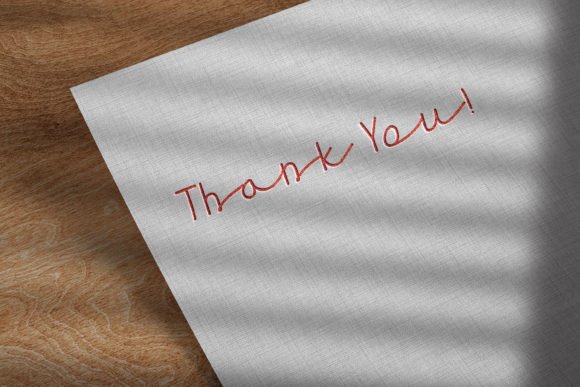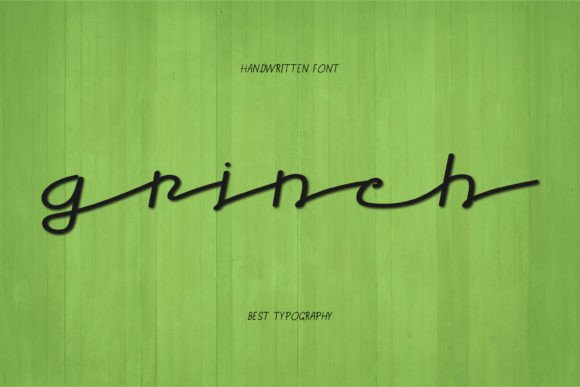
Grinch Font: The Ultimate Guide to Adding a Touch of Whimsy to Your Designs
Are you tired of using the same old fonts in your designs? Look no further than the Grinch Font! This fun and quirky script font is perfect for crafty ideas and is sure to add a touch of personality to your work. In this article, we’ll take a closer look at the Grinch Font, its features, and how you can use it to take your designs to the next level.
What is Grinch Font?
The Grinch Font is a script font inspired by the beloved character from Dr. Seuss’s classic tale, “How the Grinch Stole Christmas”. This font is designed to capture the whimsical and playful spirit of the Grinch, making it perfect for designs that require a touch of humor and personality.
Features of Grinch Font
The Grinch Font comes with a range of features that make it a versatile and fun font to work with. Some of its key features include:
- Unique lettering style: The Grinch Font features a unique lettering style that is reminiscent of the Grinch’s signature scribble.
- Quirky and playful: This font is designed to be quirky and playful, making it perfect for designs that require a touch of whimsy.
- Script font: The Grinch Font is a script font, making it perfect for use in titles, headings, and other design elements.
- Easy to read: Despite its quirky style, the Grinch Font is easy to read, making it perfect for use in a range of designs.
How to Use Grinch Font in Your Designs
The Grinch Font is a versatile font that can be used in a range of designs, from crafty projects to digital designs. Here are some ideas for using the Grinch Font in your designs:
- Crafting projects: The Grinch Font is perfect for use in crafting projects, such as card making, scrapbooking, and DIY gifts.
- Digital designs: This font can also be used in digital designs, such as social media graphics, blog posts, and digital invitations.
- Sign making: The Grinch Font is a great choice for sign making, whether you’re creating a sign for a business or a personal project.
- Party decorations: This font can also be used to create fun and playful party decorations, such as banners and garlands.
Tips for Using Grinch Font
Here are some tips for using the Grinch Font in your designs:
- Use it sparingly: While the Grinch Font is fun and playful, it can be overwhelming if used too much. Use it sparingly to add a touch of personality to your designs.
- Pair it with other fonts: The Grinch Font pairs well with other fonts, such as sans serif fonts and serif fonts. Experiment with different pairings to find the one that works best for your design.
- Experiment with colors: The Grinch Font looks great in a range of colors, from bright and bold to pastel and subtle. Experiment with different colors to find the one that works best for your design.
The Grinch Font is a fun and quirky script font that is perfect for adding a touch of personality to your designs. With its unique lettering style, quirky and playful vibe, and ease of use, this font is sure to become a favorite among designers and crafters. Whether you’re working on a crafting project or a digital design, the Grinch Font is a great choice. So why not give it a try and see the results for yourself?